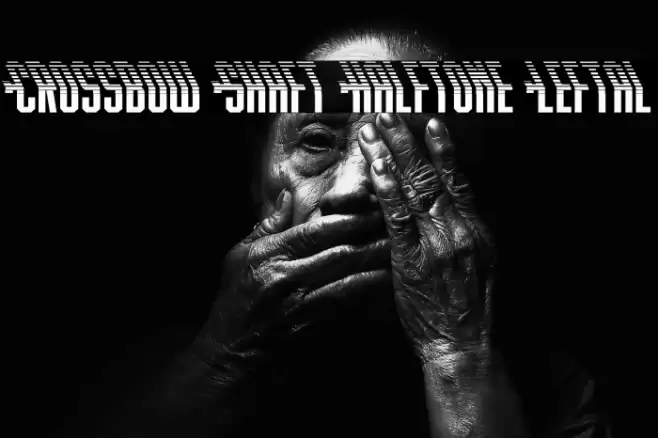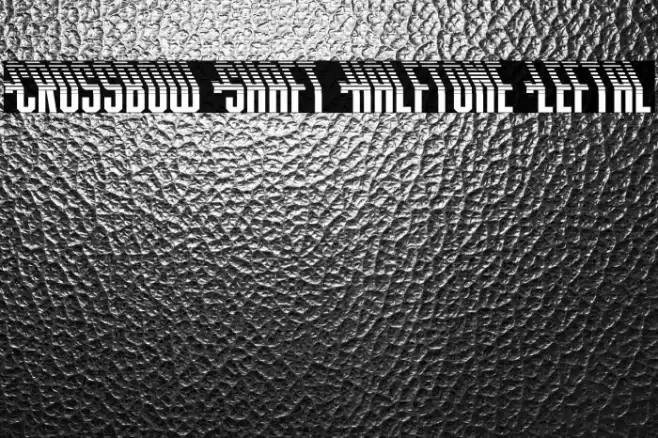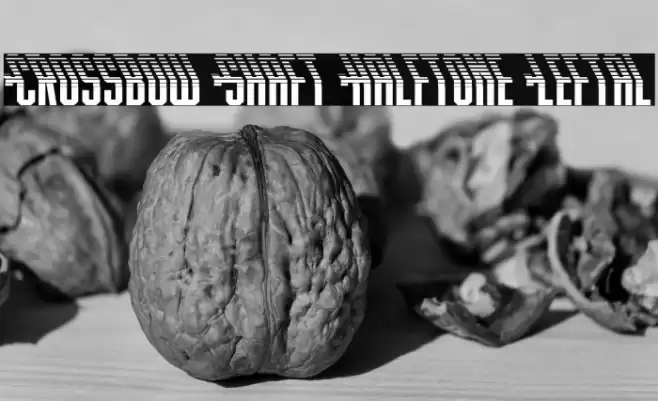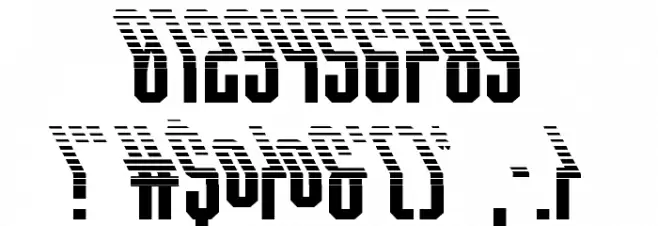
Crossbow Shaft Halftone Leftal Font
Crossbow Shaft Halftone Leftal Description
This font features a bold, decorative style with a halftone effect that creates a sense of movement and depth. The characters are constructed with horizontal lines that vary in length, giving a unique, dynamic appearance. The uppercase letters are particularly striking, with a strong geometric form that is both modern and eye-catching. The lowercase letters maintain the same aesthetic, ensuring consistency across text. Numbers and special characters are designed with the same attention to detail, making this font versatile for various uses. The overall design is reminiscent of digital or futuristic themes, making it suitable for projects that require a bold, innovative look.
A bold, decorative font with a halftone effect and modern, geometric style from Regular fonts.
- Proposed Projects: Ideal for digital art, posters, branding, and any project that requires a futuristic or tech-inspired aesthetic.
- Overall Style: Modern, Futuristic